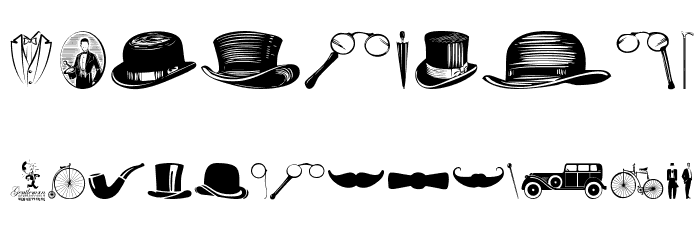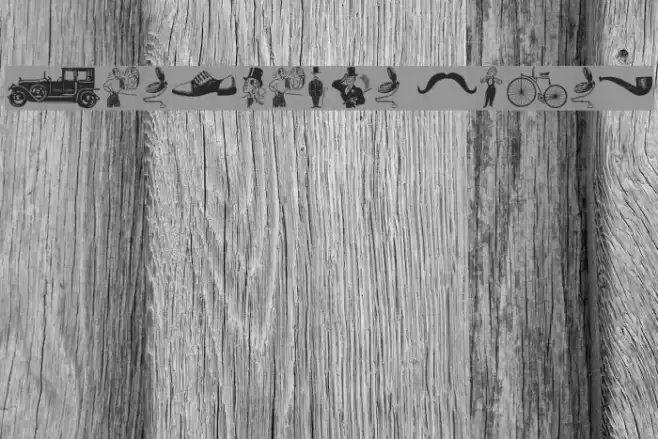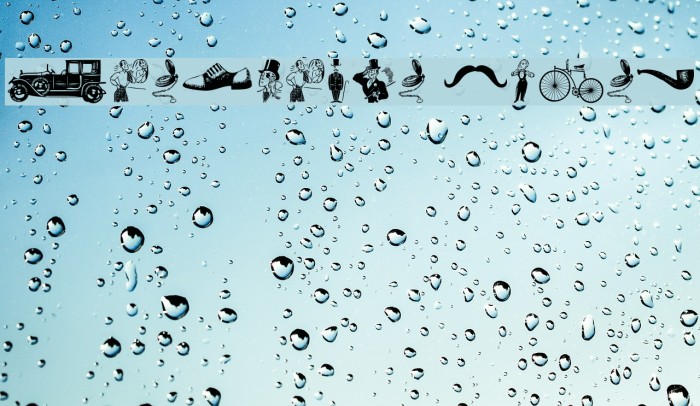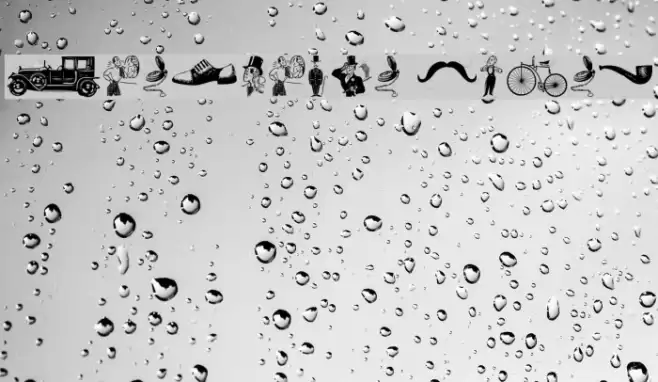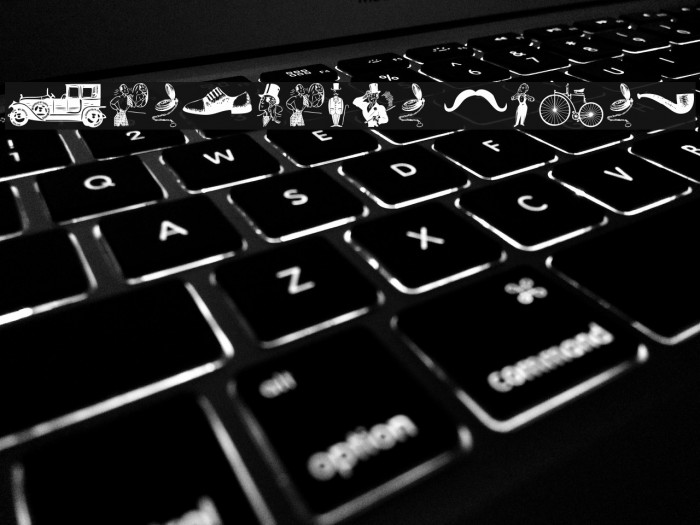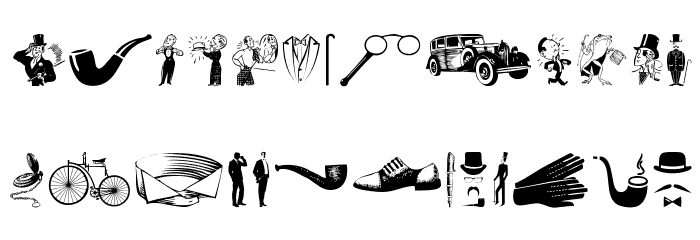
Gentleman Icons Font
Gentleman Icons Description
A collection of vintage-inspired, gentleman-themed pictograms featuring hats, bow ties, pipes, shoes, mustaches, monocles, umbrellas, classic cars, and figures in formal attire. The icons are rendered in bold, high-contrast black silhouettes with occasional fine line details, evoking an early 20th-century aesthetic.
Vintage gentleman-themed icon set with bold, high-contrast silhouettes from Uncategorized fonts.
- Proposed Projects: Branding for barbershops, men's fashion, event invitations, themed posters, retro packaging, and social media graphics.
- Overall Style: Vintage, Decorative
- Use Case: Logos, Posters, Branding, Decorative accents